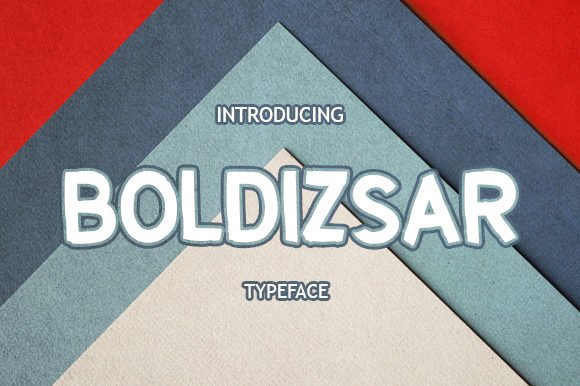
The Perfect Blend of Bold and Charming: Introducing Boldizsar Font
You know that moment when you’re brainstorming ideas for a new project and the perfect font suddenly pops into your head? It’s like a spark of creativity that sets your design ablaze! For designers, finding that elusive font can make all the difference between a good design and a great one. That’s where Boldizsar Font comes in – a bold and charming sans serif font that’s sure to elevate your next design project.
Whether you’re creating a logo, brochure, or social media graphic, Boldizsar Font is the perfect addition to your design toolkit. Its versatility and modern feel make it an ideal choice for a wide range of design ideas, from fashion and lifestyle to tech and more. With Boldizsar Font, you can add a touch of sophistication and elegance to your designs, making it a valuable asset for any designer looking to take their work to the next level.
Boldizsar Font Key Features
- Font Family: Boldizsar is a unique, high-quality font designed specifically for use in various digital and print media.
- Character Set: Includes a wide range of characters, including Latin, Cyrillic, and Greek alphabets, making it suitable for multilingual projects.
- Unique Characteristics: Features a distinctive, hand-drawn style with bold lines and subtle flair, giving it a distinctive look that sets it apart from other fonts.
Boldizsar Font Review
Overall, I found the Boldizsar Font to be an interesting and eclectic choice for designers. The font has a unique aesthetic that’s sure to grab attention. Here are some things that worked well: ✨
- Unconventional yet eye-catching design, which can be perfect for adding a touch of personality to a project
- Multiple styles and weights available, providing designers with a range of options to suit their needs
- Good for creating visually striking headings and titles, as the bold lines and angles can really make a statement
However, I did encounter a few limitations: ⚠️
- The font can be quite busy and overwhelming, especially at smaller sizes or when used extensively throughout a project
- The bold styles can be difficult to read for some users, particularly those with visual impairments or dyslexia
- The font’s unconventional design may not be suitable for all types of projects or brands, particularly those that require a more conservative or traditional look
Overall, I think the Boldizsar Font is a solid choice for designers who want to add a bit of personality to their projects. However, it may not be the best fit for every project or client. With careful consideration and usage, it can be a great tool in a designer’s arsenal.
Tips for getting the most out of Boldizsar in Canva: Use it for headings and titles to add a touch of elegance and sophistication. Experiment with different font sizes and styles to create visual interest.
Tips for getting the most out of Boldizsar in Adobe Photoshop or Illustrator: Use it for custom typography and logo design. Experiment with different font sizes and styles to create unique and eye-catching effects.
Tips for getting the most out of Boldizsar in PowerPoint or Word: Use it for headings and titles to add a touch of sophistication. Experiment with different font sizes and styles to create visual interest.
Boldizsar font is ideal for:
- Logo design
- Typography
- Business cards
- Marketing materials
What is the recommended font size for optimal readability with the Boldizsar Font?
For optimal readability, we recommend using font sizes between 12pt and 24pt. This range provides a clear and legible experience for most users, while also allowing for effective use of the font’s design characteristics.